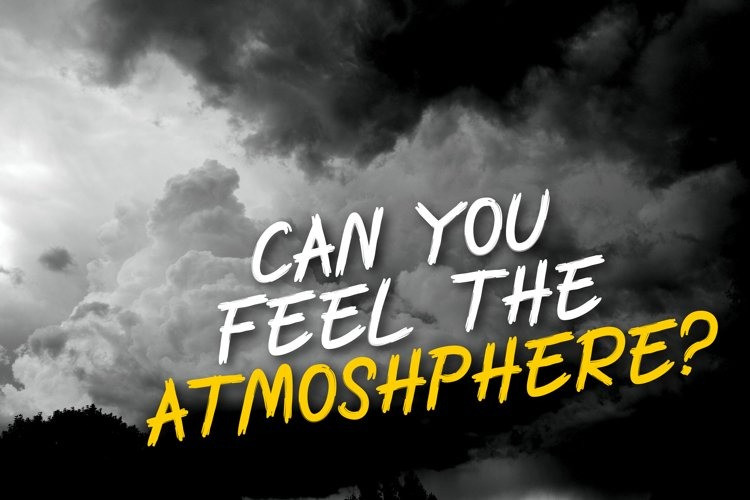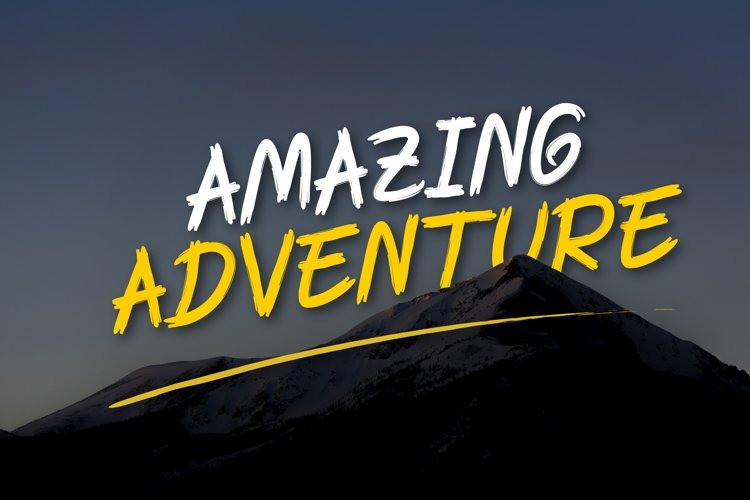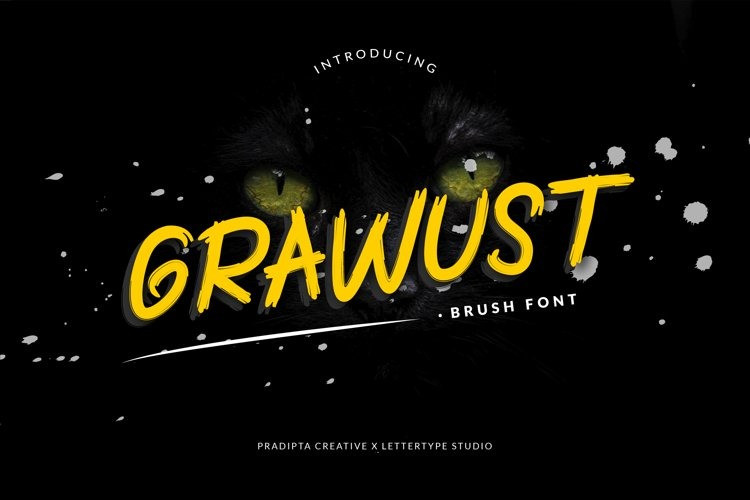
Grawust Brush Font
Grawust Brush Font is a supercharged and an eye-catching bursting with inline striping modern style brush. It comes with uppercase, numbers, punctuation and symbols.
Grawust Brush Font is great for logos, branding, package and apparel design, film, wedding designs, social media posts, advertisements, label, photography, watermark, invitation, stationery, banners, posters, social media and much more.